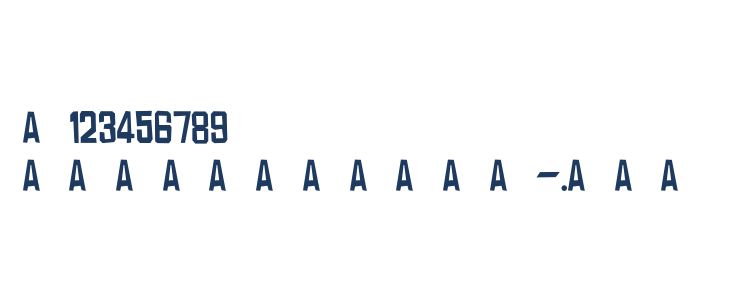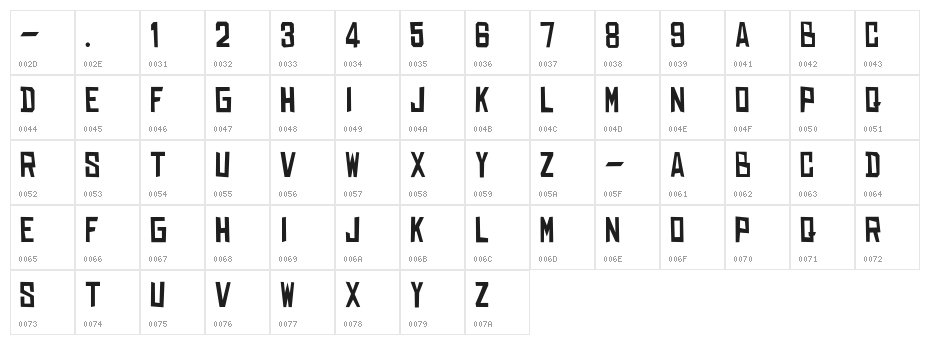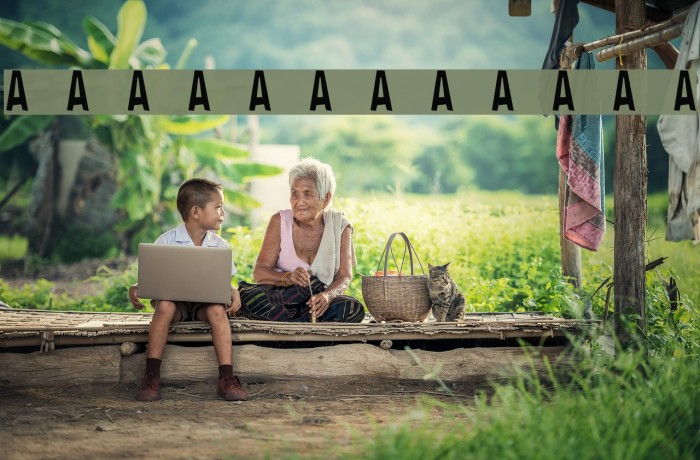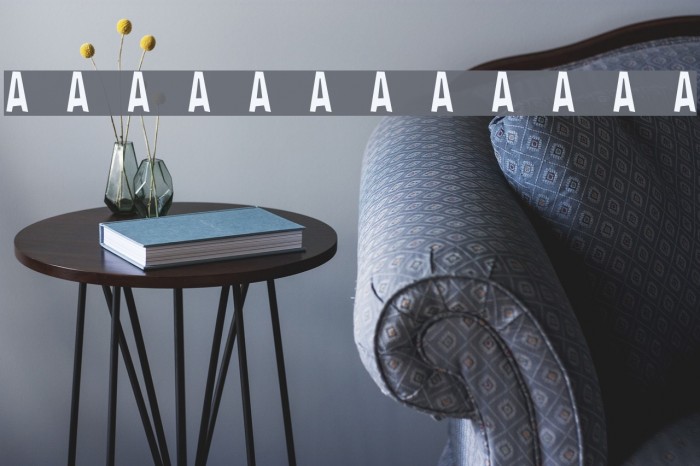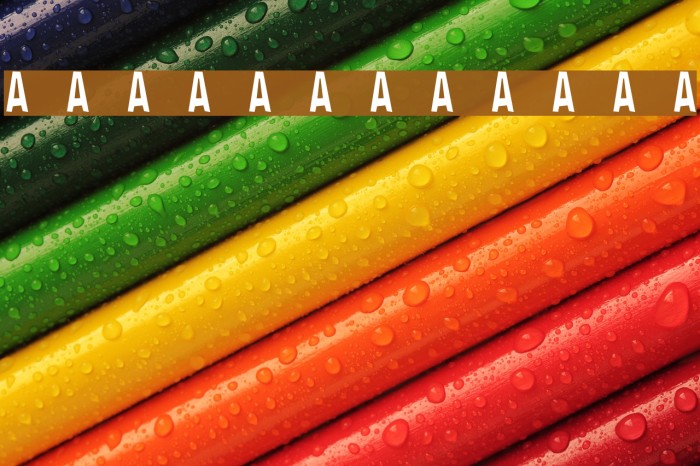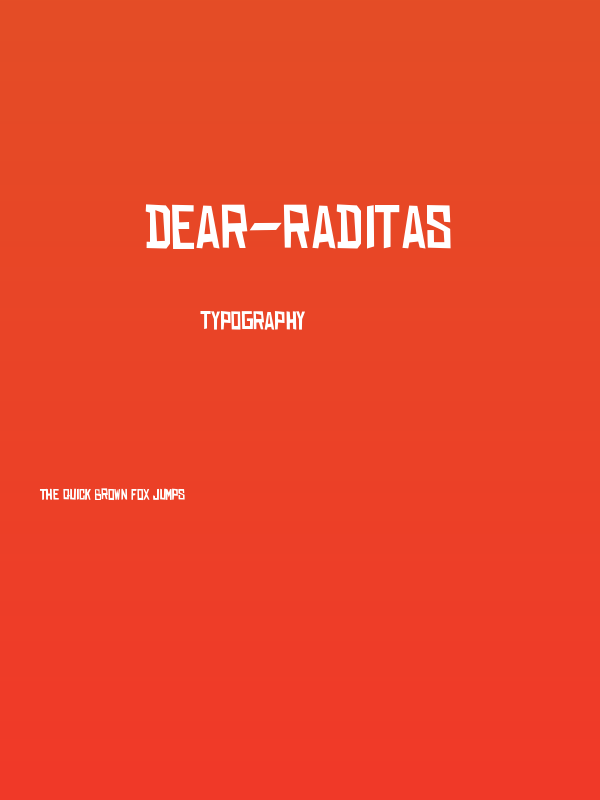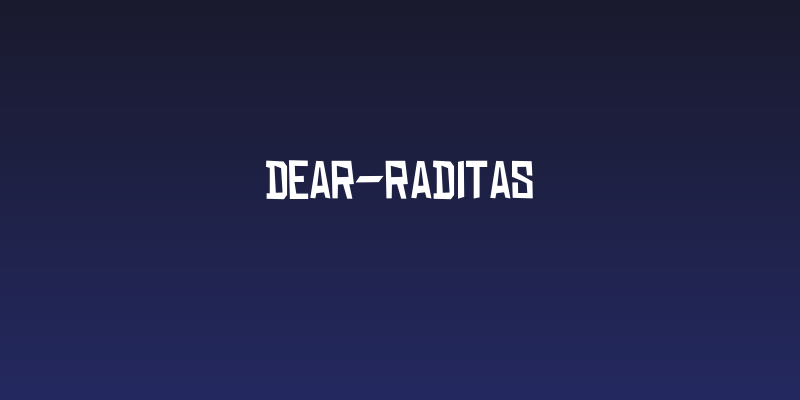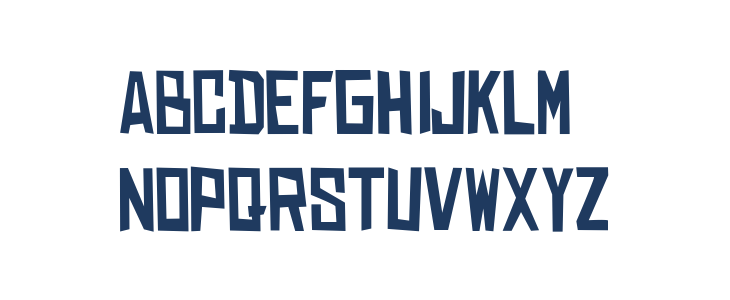
DEAR-RADITAS Font
DEAR-RADITAS Description
This font features a bold and modern design with strong geometric shapes. Each character is crafted with precision, showcasing a consistent stroke width that emphasizes clarity and readability. The uniformity in the letterforms creates a cohesive and professional appearance, making it suitable for various design applications. The font's simplicity and boldness make it stand out, while its clean lines ensure it remains legible at different sizes. Its contemporary style is perfect for projects that require a modern and assertive look.
| Proposed Projects | Ideal for branding, headlines, posters, and digital media where a strong visual impact is needed. |